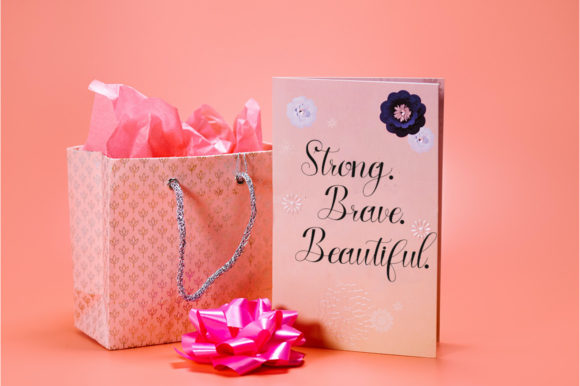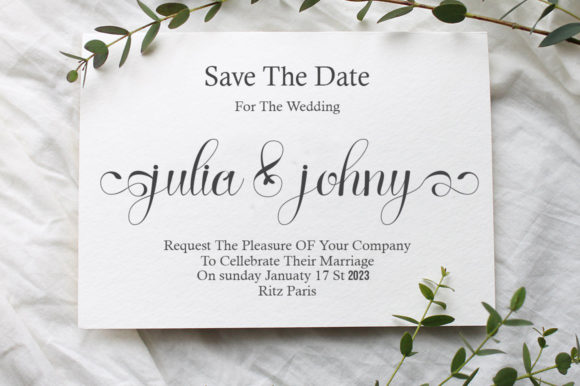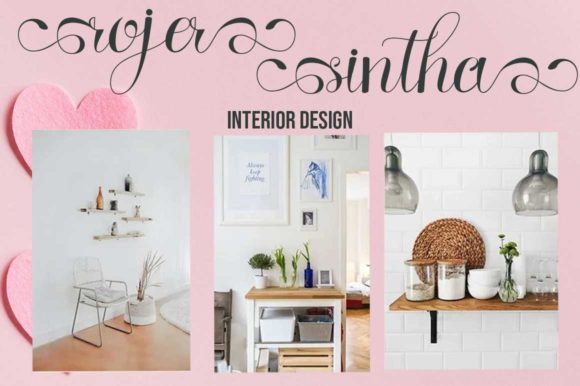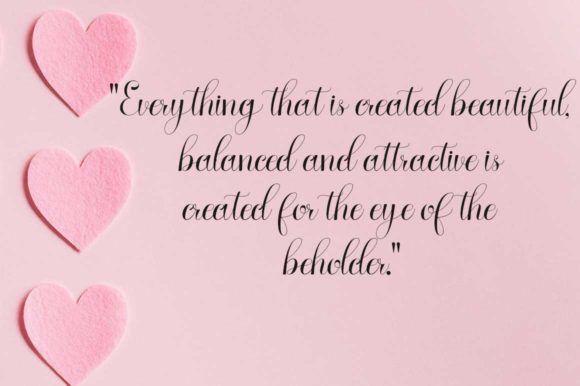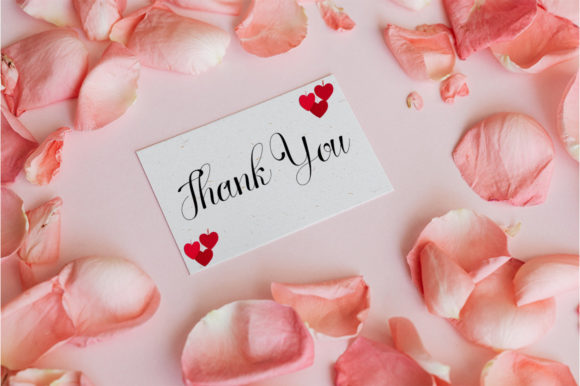
Introduction to Love Christabel Font
Love Christabel is a romantic and sweet calligraphic.
It has a casual yet elegant touch This font is PUA coded which means you can access all the glyphs and sweeps easily.
Key Features of Love Christabel Font